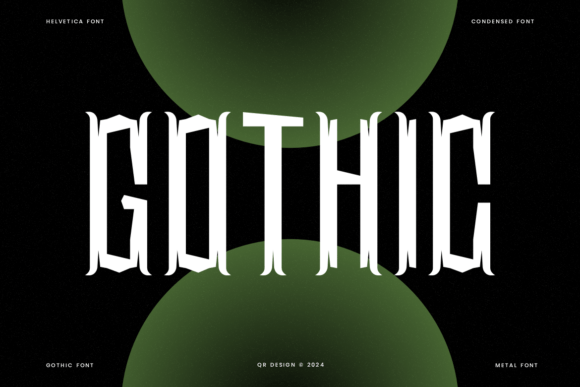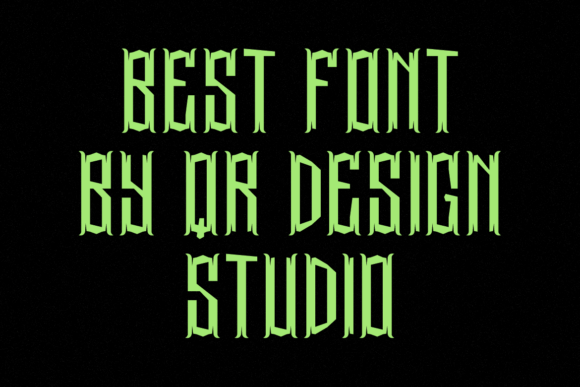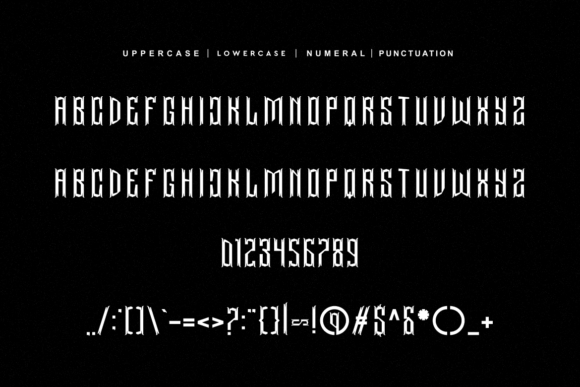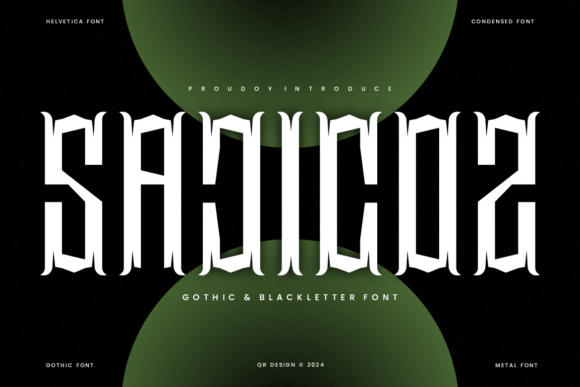
Introduction to Sajicoz Font
Sajicoz is an incredibly unique and gothic blackletter display font.
Masterfully designed to become a true favorite, this font has the potential to bring each of your creative ideas to the highest level .
Sajicoz Font offers exceptional quality and versatility, making it a valuable addition to your design toolkit. Whether you’re creating for personal projects or commercial use, Sajicoz Font delivers professional results.